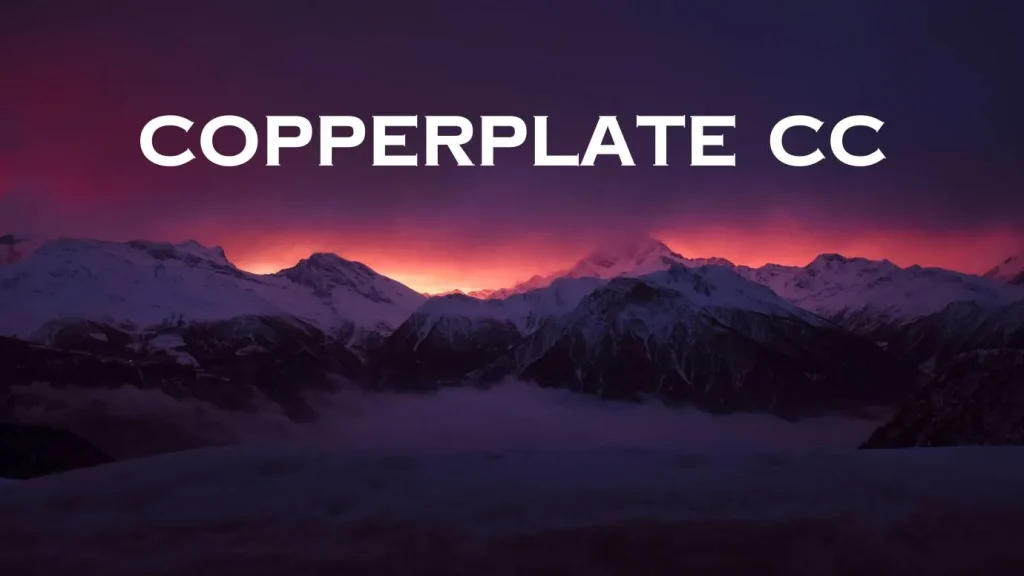
Add a classic antique feel to merchandise, products, branding, and logotypes with this typeface. This typeface is full of joy. In the case that you do not wish
Frederic Goudy designed Copperplate Cc Font. This typography collection will give your design a cool and unique vibe. With its modular design and multifunctional capabilities, this font pairs well with other fonts without losing its unique lineal style.
Add a classic antique feel to merchandise, products, branding, and logotypes with this typeface. This typeface is full of joy. In the case that you do not wish to download the font family, you can try the generator tool.
Why Copperplate Cc Font is so Popular?
It is best suited for HD graphics and video design due to its cool and soft presence. As a result, we can copy and paste without any hassle. In addition to being available in many different font combinations, this typeface can be used to make designs more readable.
This typeface is best compared to the high destiny fancy typeface. For thumbnail designs, theme designs, and other design projects, this stunning typeface is often selected by designers. When in need of a font with matching style and characters, look no further than the quicksand font as it perfectly aligns with the font mentioned.
Exploring Alternatives to Copperplate Cc Font
This typeface can be used for text designs, articles, and more digital designs. There are many uses for this typeface in the design world. Creating eye-catching card designs is possible with this typeface. Using it, you can also create long and short paragraphs.
Copperplate Cc is the unique text style, the design was planned by Frederic Goudy. It is a serif typeface.